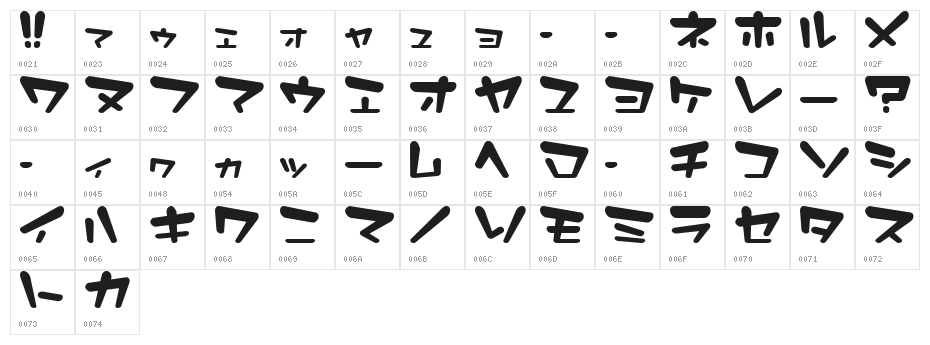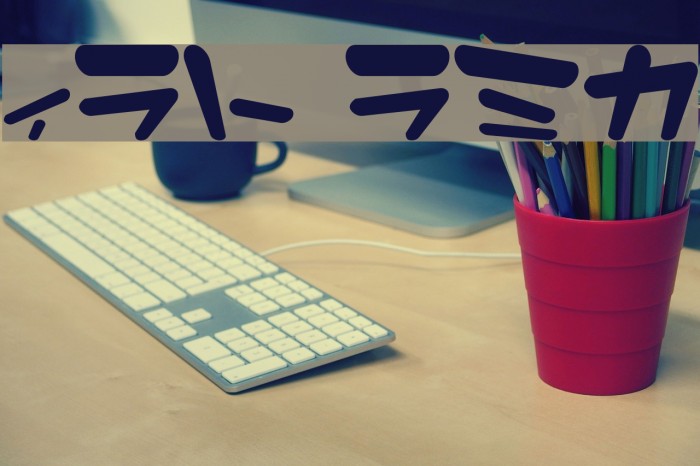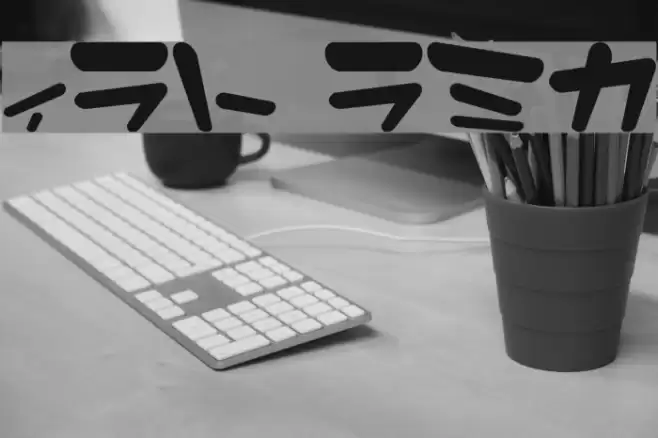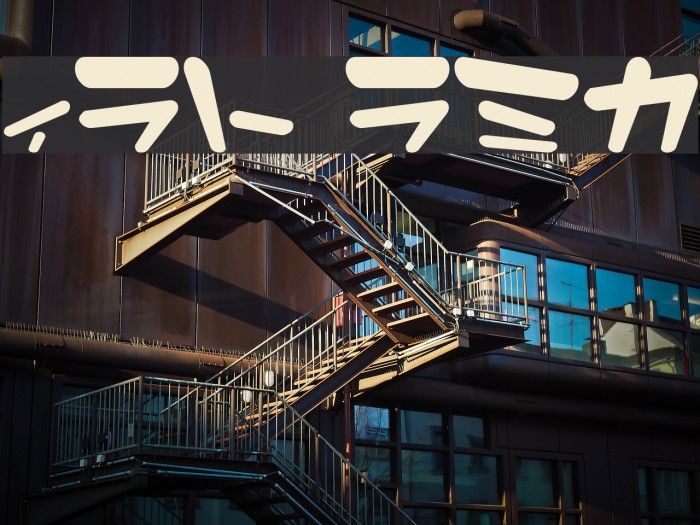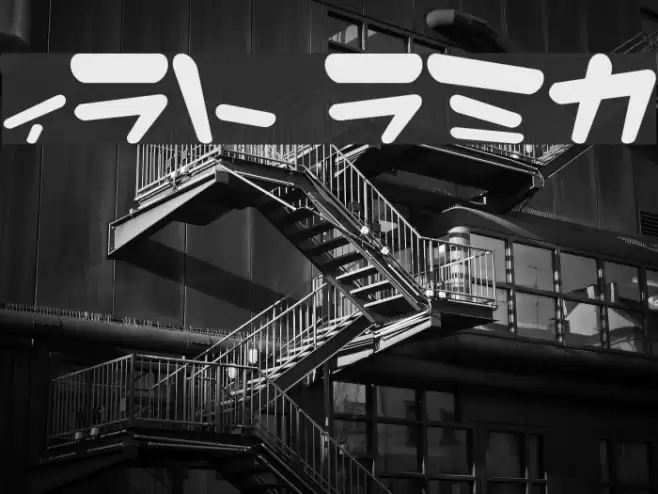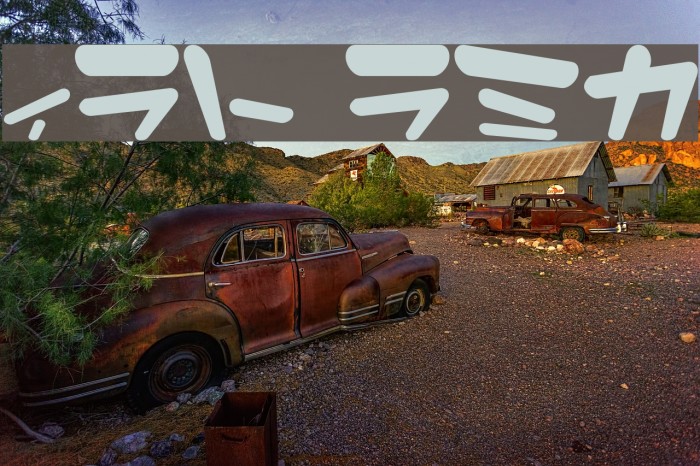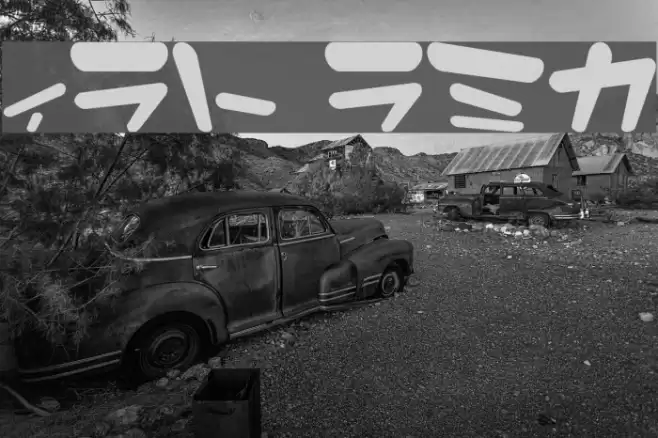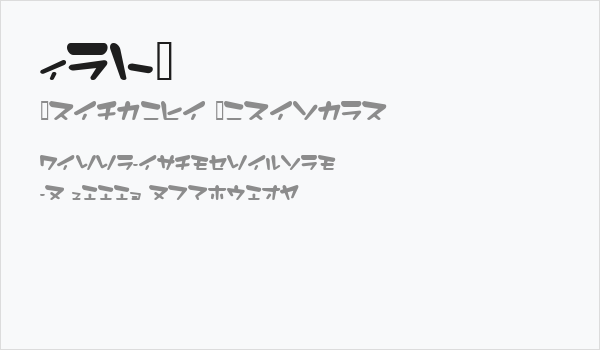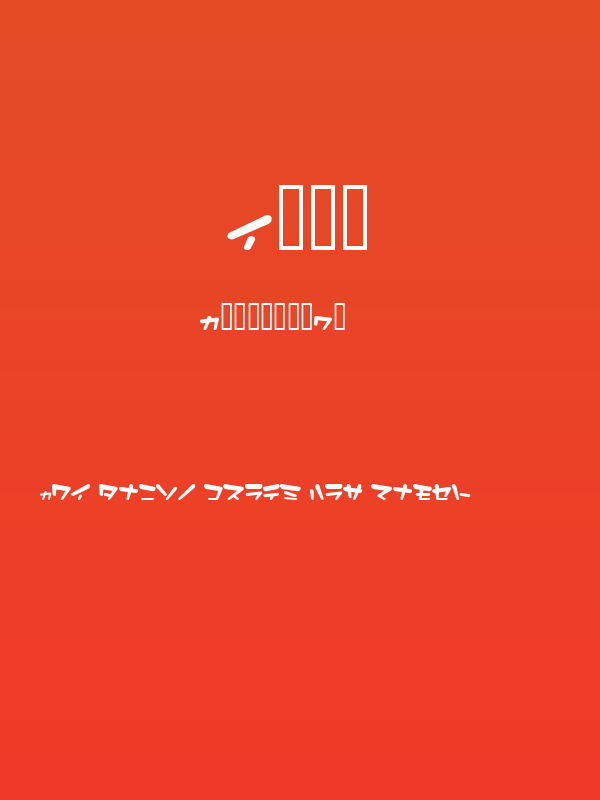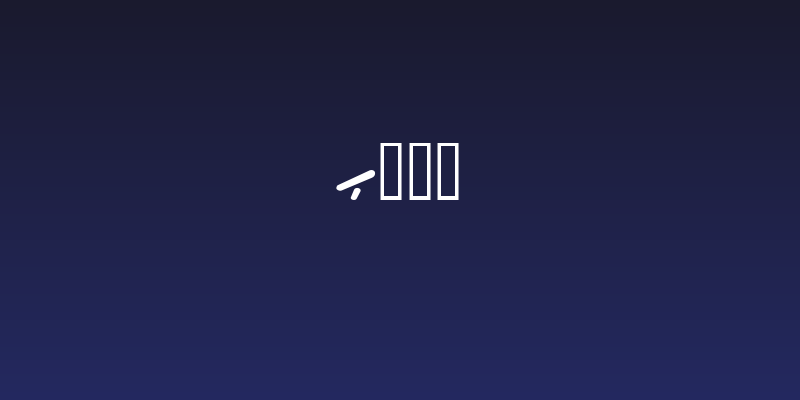
EosK Font
EosK Description
This font features a bold, playful style with a distinctly modern and decorative flair. The characters are rounded and thick, giving them a friendly and approachable appearance. The strokes are consistent in width, contributing to a uniform look across all characters. The font includes a mix of straight and curved lines, adding a dynamic and lively feel. The spacing between characters is relatively tight, which enhances the cohesive and compact nature of the text. This font is particularly suitable for creative and informal applications, where a sense of fun and energy is desired.